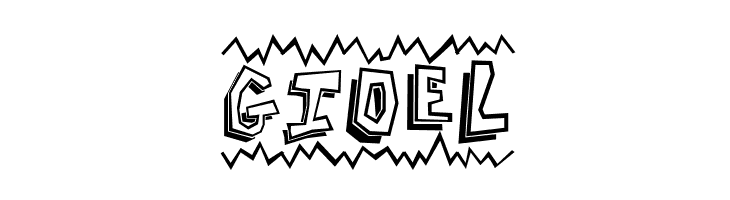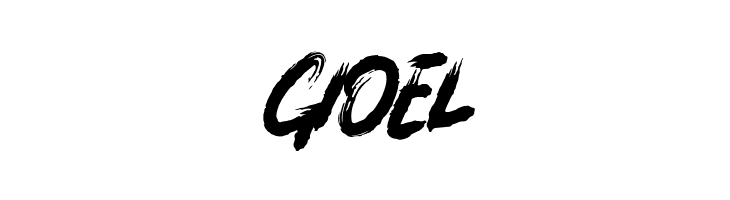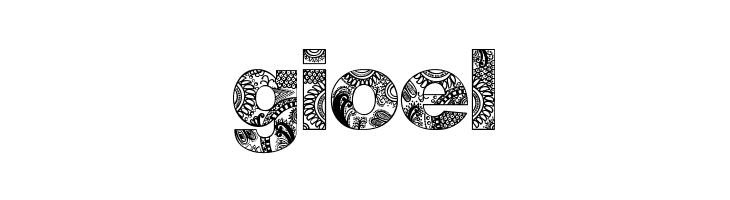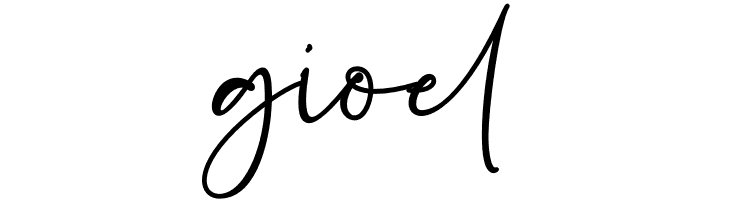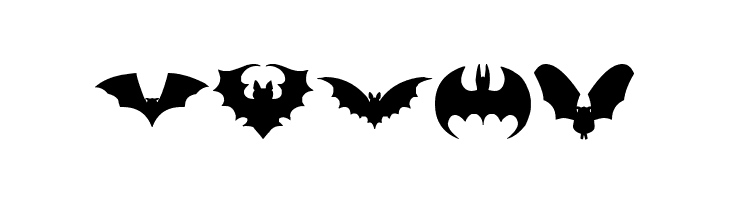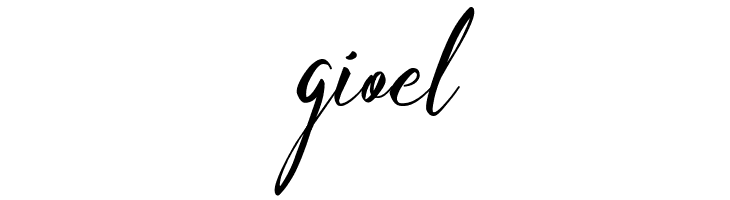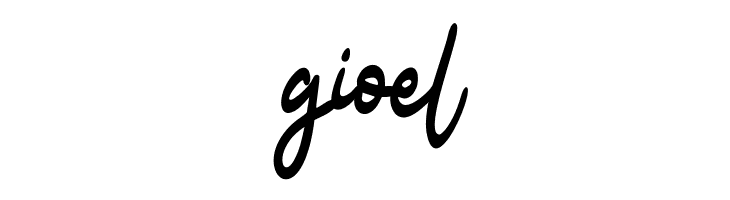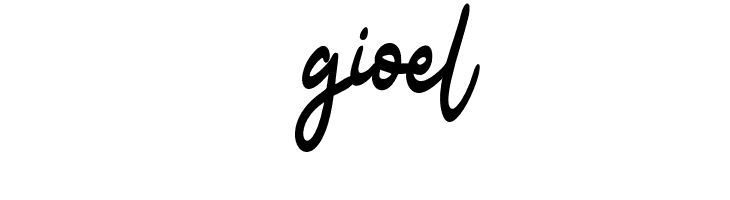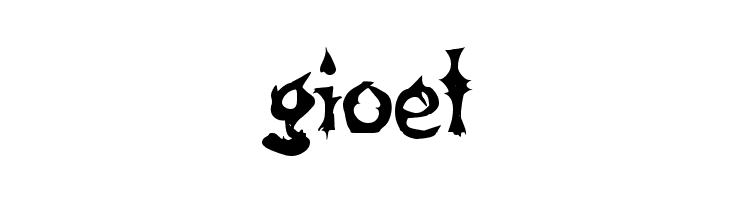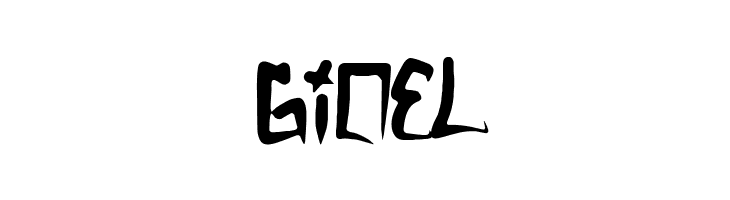
A gothic-style font with intricate, ornate letterforms and a medieval aesthetic.
A bold, blackletter-inspired font with modern circular enclosures.
A Gothic-style font with sharp, angular lines and ornate detailing.
A bold, brush-style font with a gritty, expressive texture.
A bold, geometric display typeface with strong, angular shapes.
A playful handwritten font with tall, narrow letters and fluid strokes.
A playful, handwritten font with tall, narrow letters and fluid strokes.
A bold, angular font with a modern, futuristic aesthetic.
Elegant cursive script with a handwritten feel.
A modern, handwritten font with fluid strokes and dynamic character.
A graceful, cursive script font with elegant, flowing strokes.
A dynamic and flowing script font with elegant cursive letterforms.
A dynamic, expressive handwritten font with fluid strokes and artistic flair.
A playful, rounded font with smooth curves and consistent stroke width.
An elegant script font with flowing, interconnected letters and a calligraphic style.
An elegant, flowing script font with delicate, continuous strokes.
An ornate, Gothic-style font with intricate flourishes and embellishments.
A playful, whimsical font with cursive lowercase and artistic uppercase letters.
A bold, condensed font with a distressed texture and strong presence.
A graceful, cursive script font with a handwritten style.
A bold, distressed font with a grunge texture for an edgy, vintage look.
A fluid and elegant script font with a handwritten appearance.
A bold, playful font with a futuristic outline and circular elements.
A dynamic graffiti-style font with sharp angles and flowing lines.
A bold, graffiti-inspired font with sharp angles and dynamic shapes.
Expressive, sketchy handwritten script with tall, angular forms.